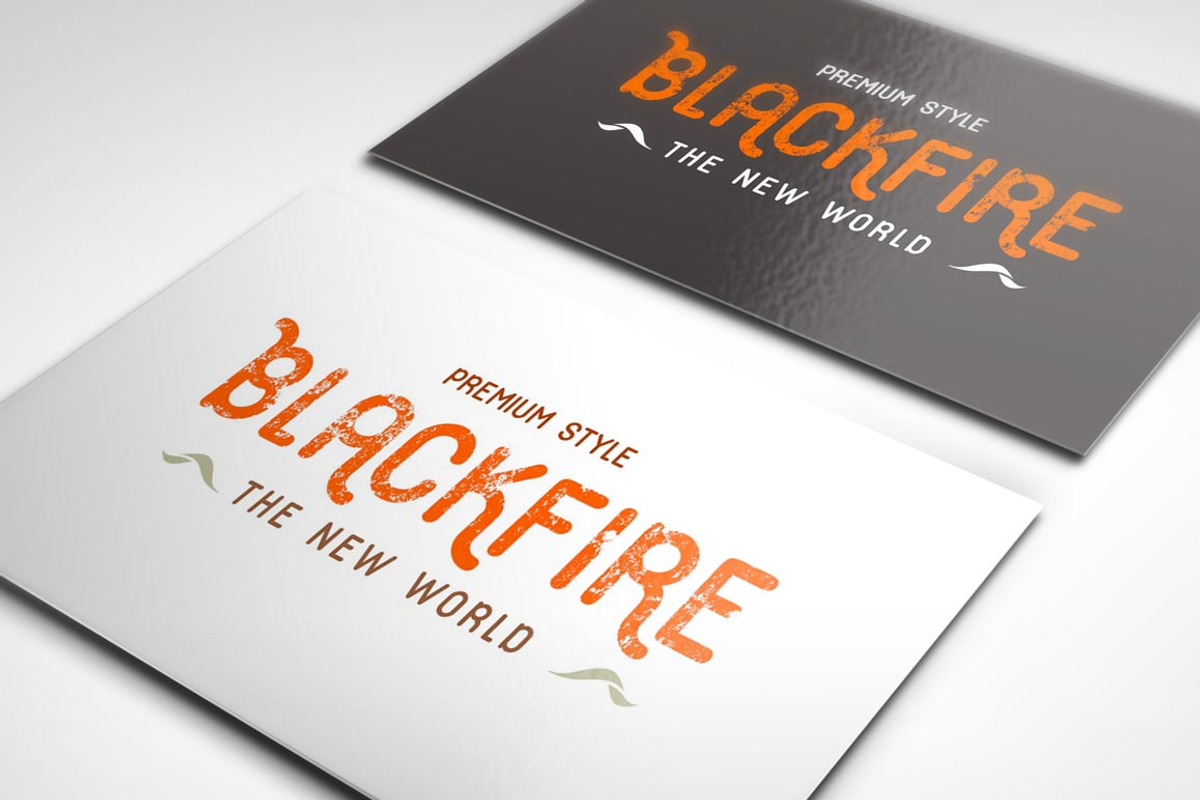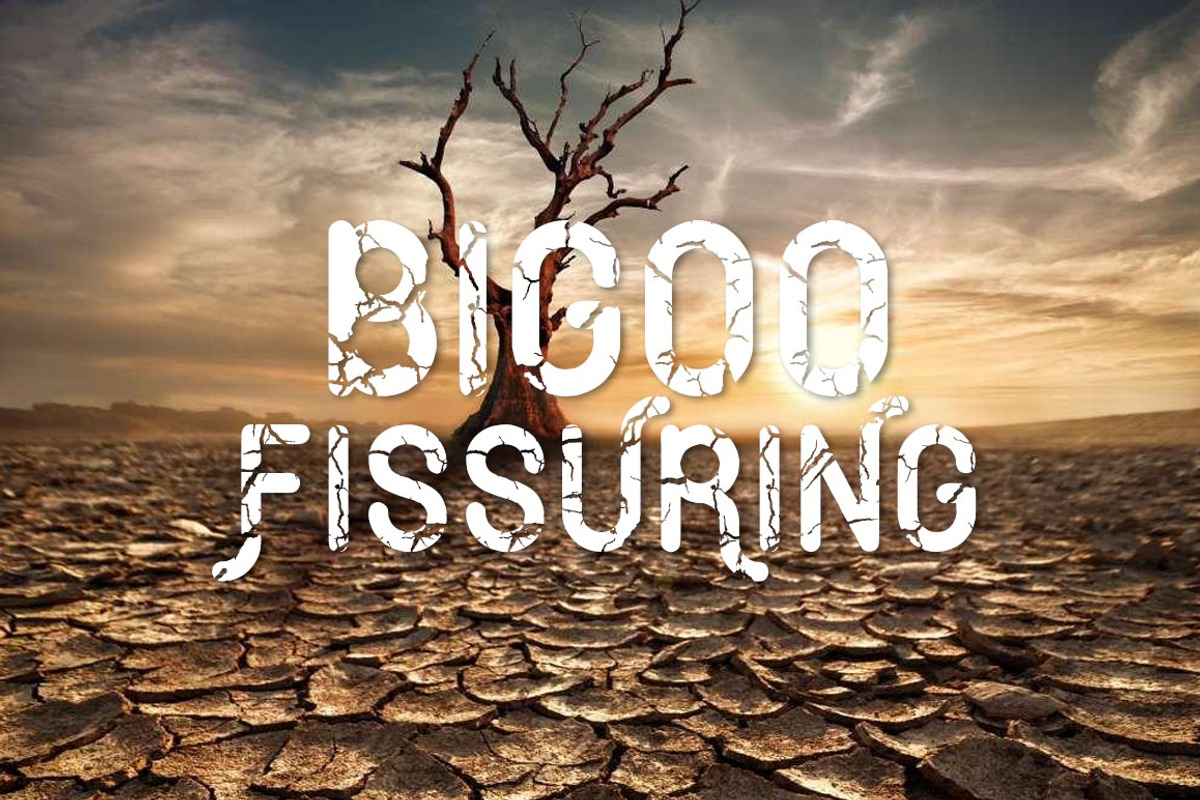
Bigoo TureType Font
Bigoo TureType Font by alphadesign is a font selected for branding, posters, packaging, typography.
- Bigoo Regular
- Bigoo Fissuring Regular
- Bigoo Motley Regular
Why Bigoo TureType Font is worth a look
Bigoo TureType Font by alphadesign fits naturally into Branding, posters, packaging, typography.